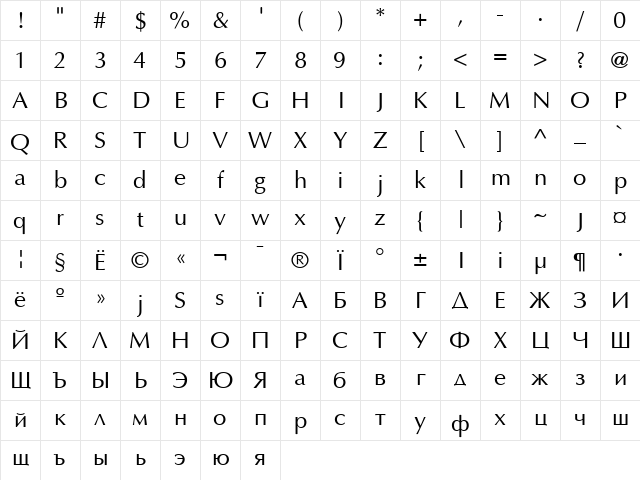
AGOptimaCyr Roman Free Font
AGOptimaCyr Roman
Design Context for AGOptimaCyr
AGOptimaCyr is a composed and adaptable typeface that performs quietly and consistently across a wide range of design contexts.
Pro Tip: Use AGOptimaCyr in both headline and body roles to test its range before committing to a single application.